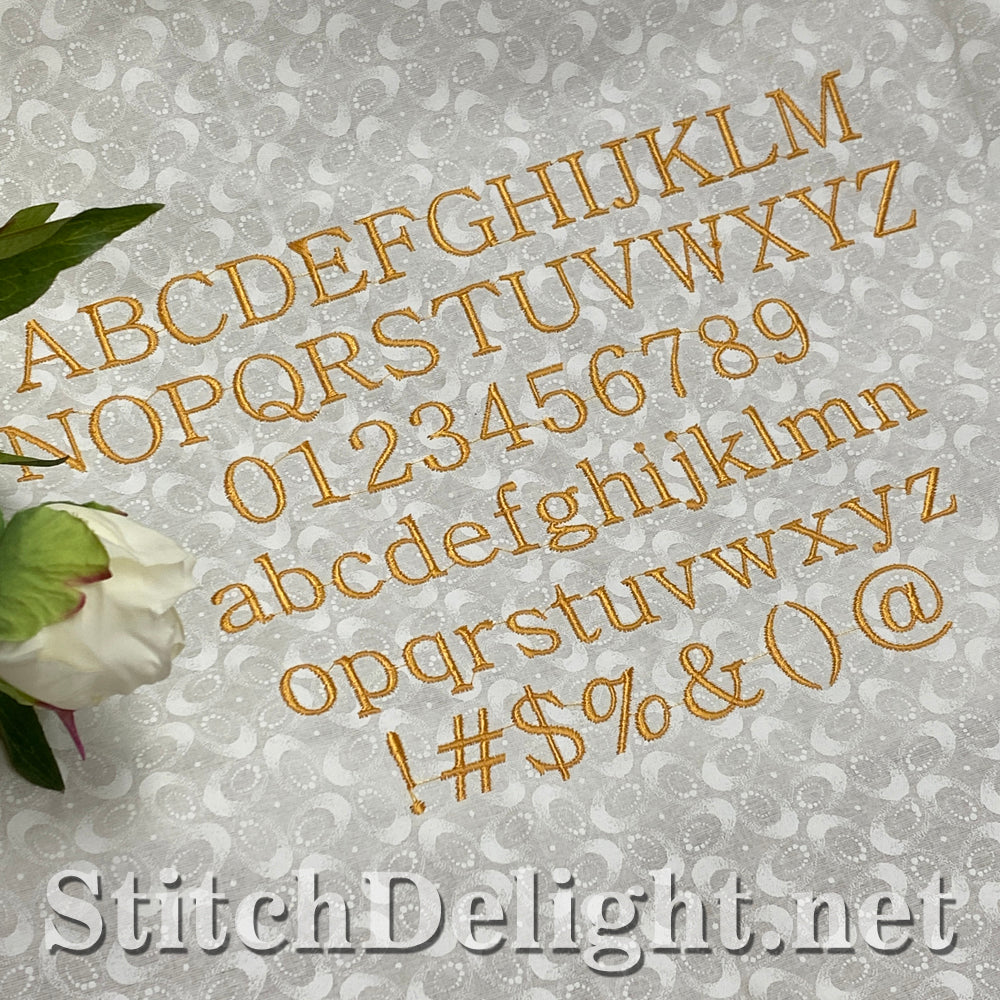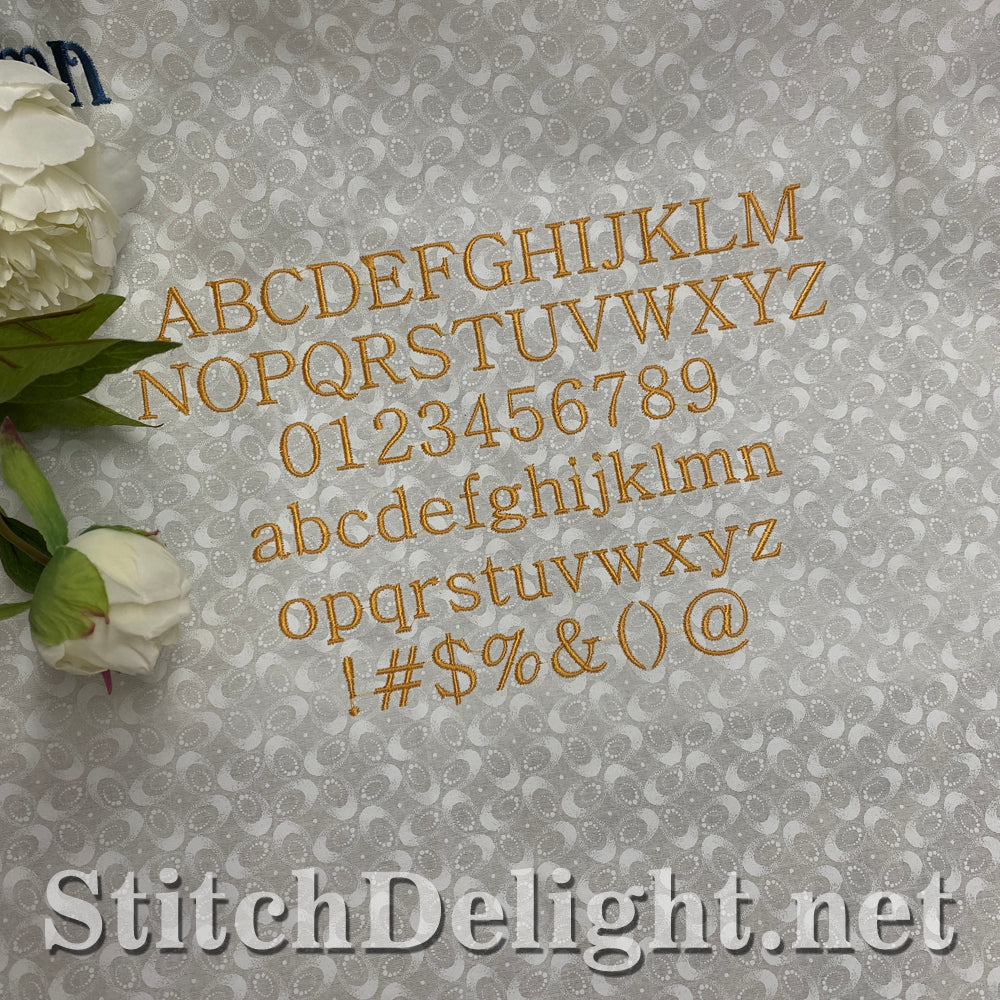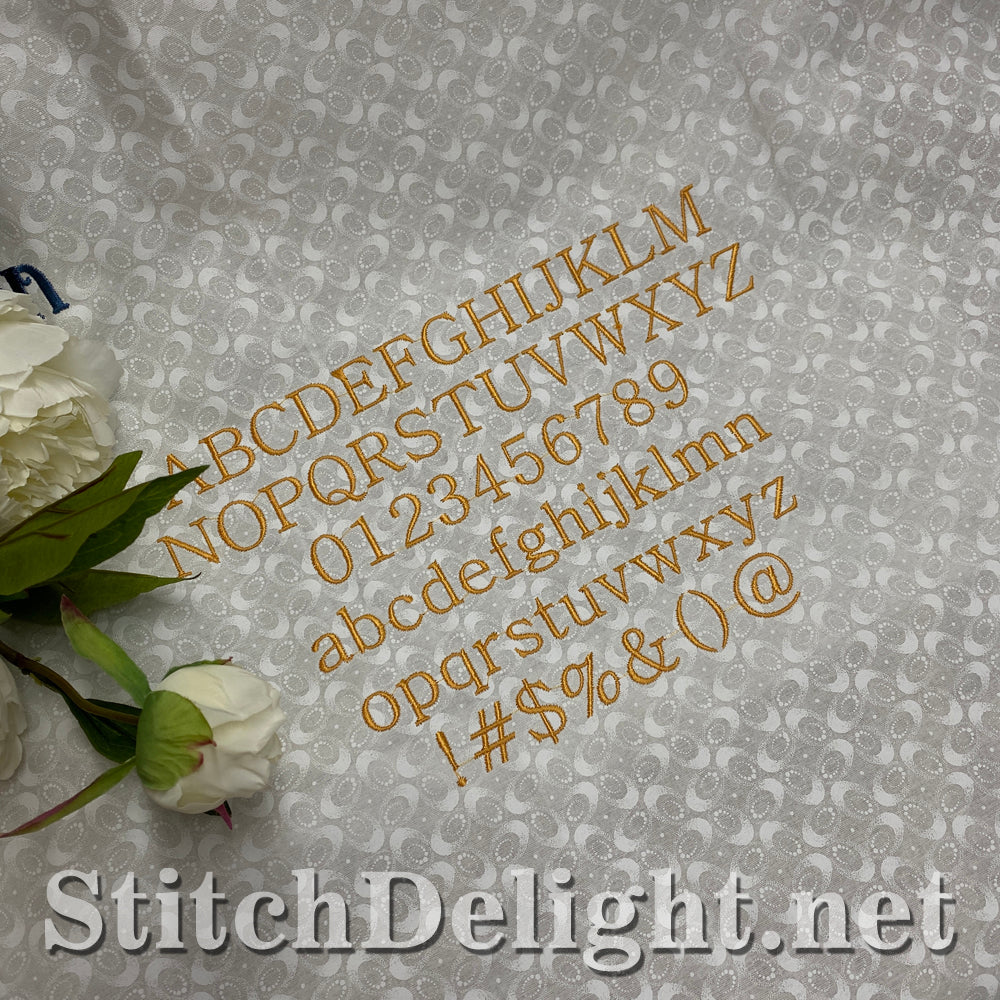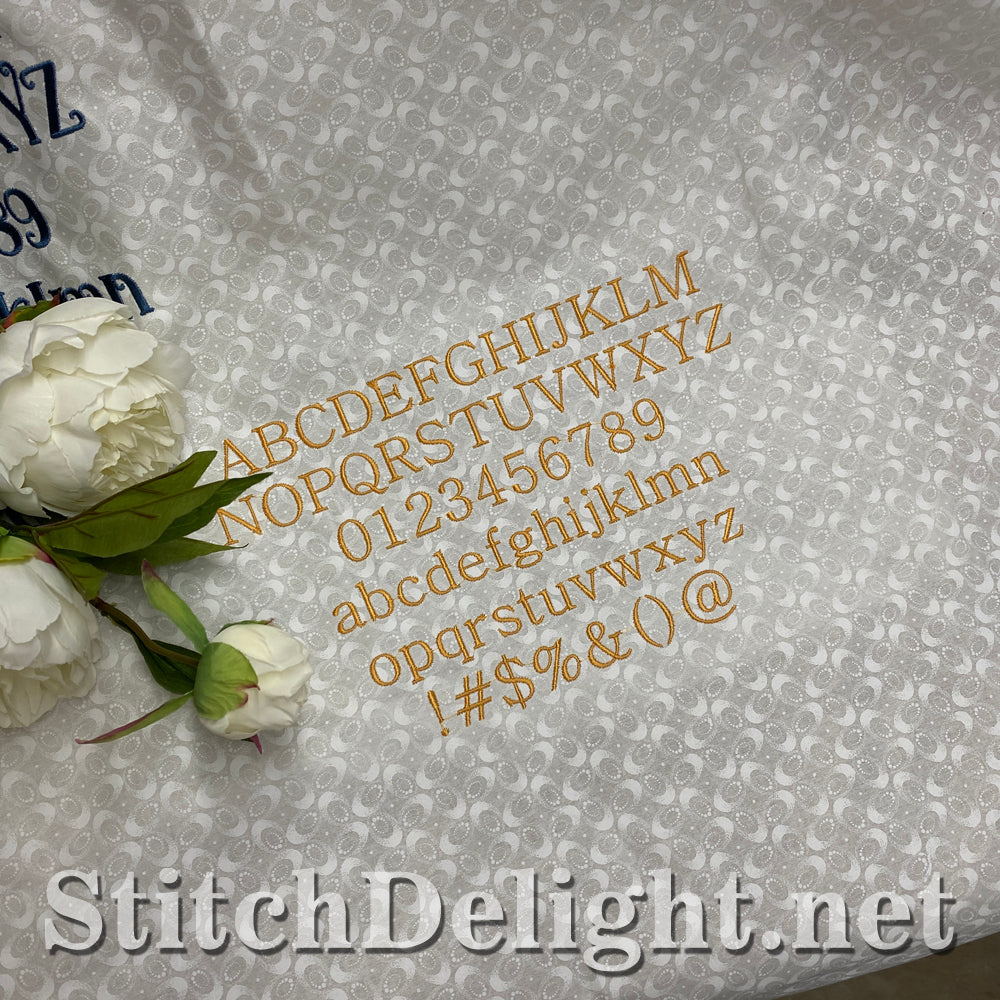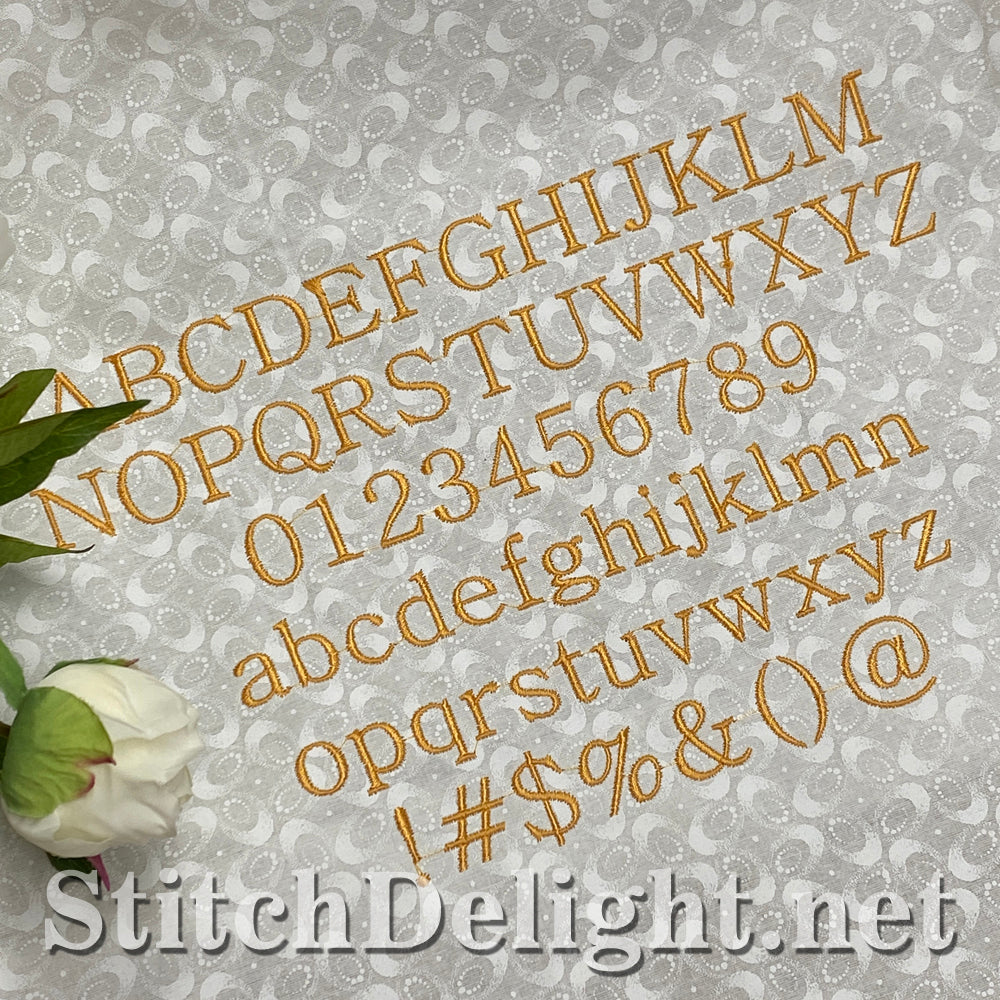
This is an easy to read font that includes BX format for use with Embrilliance software. This same font was used in the making of SDS5457 Easter Quote, click on the name to view the set ;)